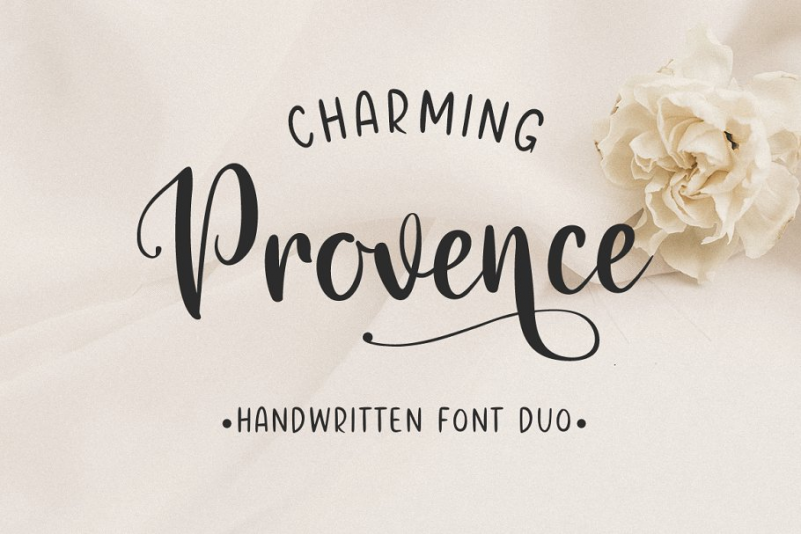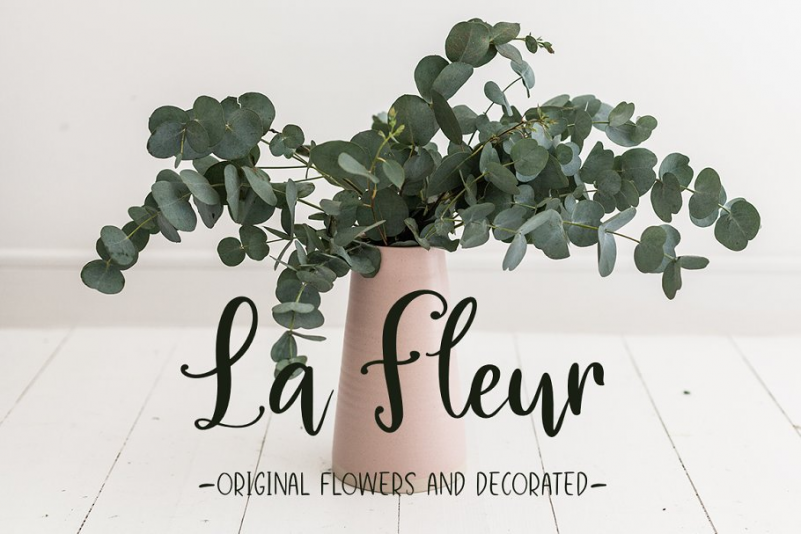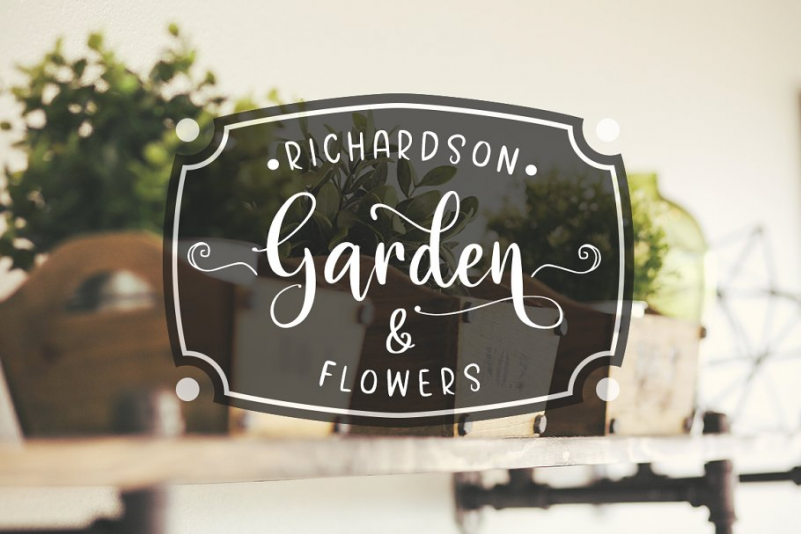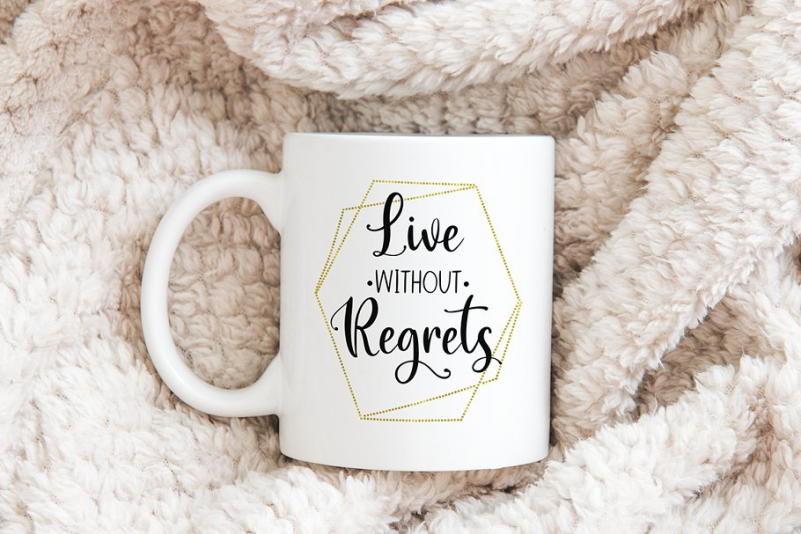
Charming Provence Font
Charming Provence– a new modern handmade font duo.
This font is ideal for branding and decorate your any project. Also with their help, you can create a logo or beautiful frame for your home. Or just use for your small business, book covers, stationery, marketing, blog, magazines and more.